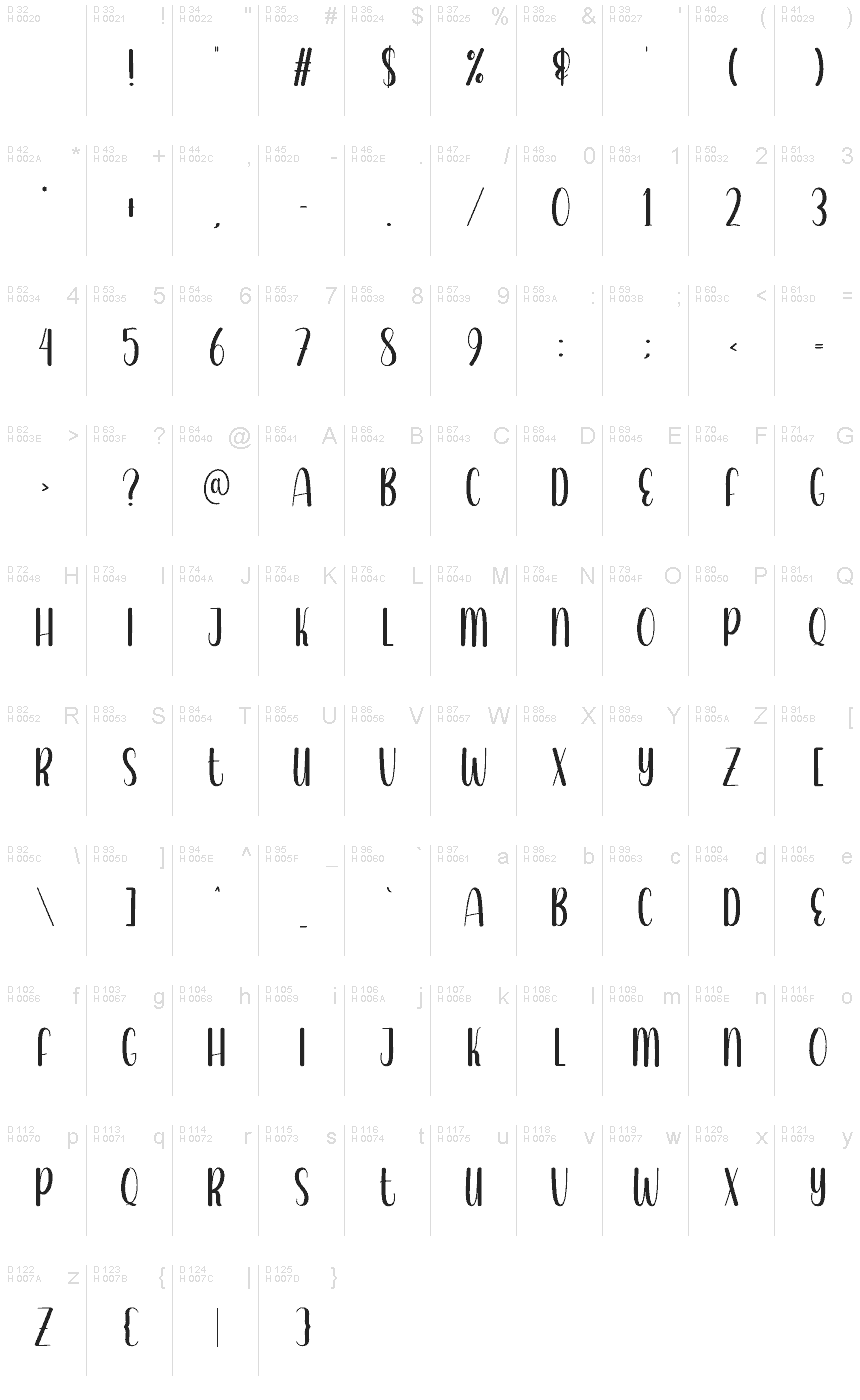
Graphick
Graphick font by Andi Moz is a condensed handwritten font with an elegant and modern style. Inspired by retro aesthetics, it has an artistic flair that brings a sophisticated vibe to any design it’s applied to. Its irregular but neat lines are the basis of unique and enchanting designs with this set. Because aesthetic uniqueness sometimes might not come at a price, the author decided to make this font free.
There are many ways in which you might use Graphick. Some of those include posters, signs and signboards, wallpapers for desktops or gadgets, stickers, book covers and booklets. Keep applying manually in sketchbooks or digitally on your next app/website project!